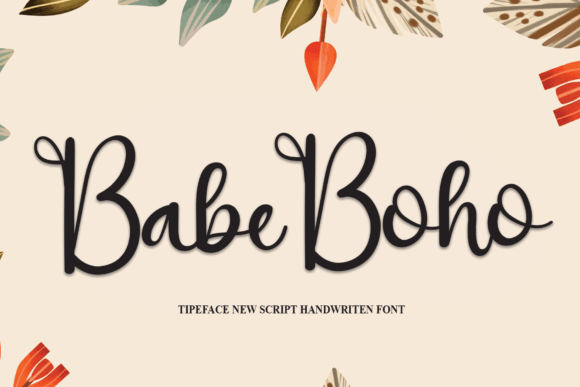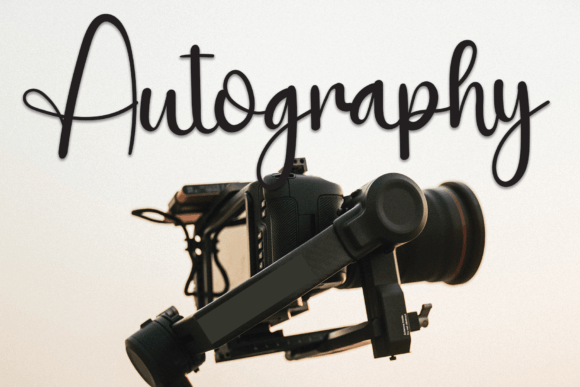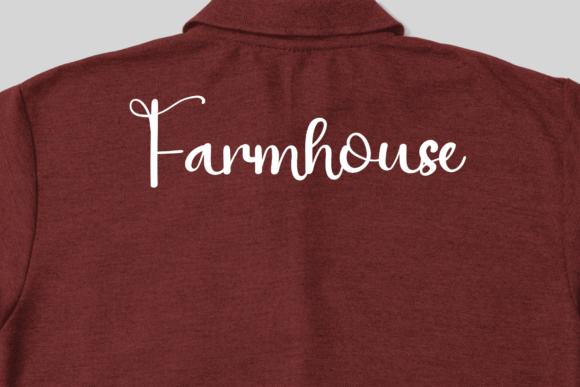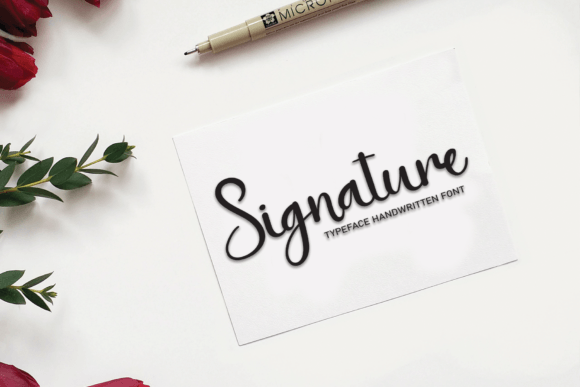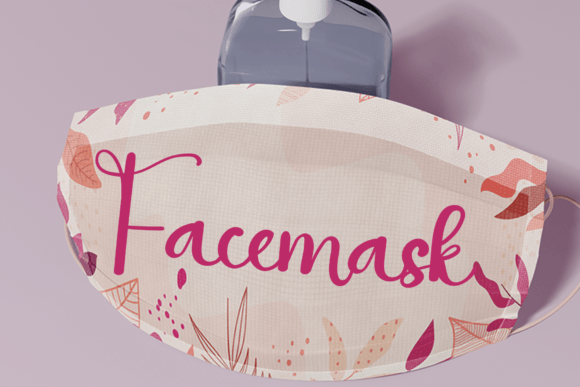
Babe Boho Font
About Babe Boho Font
Babe Boho Font is a soft, stylish handwritten typeface that brings a joyful, personal feel to your creative work. Designed with simplicity and friendliness in mind, it captures the effortless charm of hand lettering while maintaining excellent readability. Whether you’re creating invitations, greeting cards, or crafting digital content, Babe Boho Font adds just the right touch of warmth.
Ideal for Modern & Personal Design Projects
This font works beautifully across both print and digital formats. From handmade products to online branding, its smooth curves and even strokes help elevate any layout. Because it’s easy to read and visually balanced, Babe Boho Font is perfect for both casual and professional projects. For instance, you can use it on logos, social media graphics, or even product packaging with a handcrafted feel.
Where to Use Babe Boho Font
You’ll find it especially useful for:
• Personalized greeting cards and stationery
• Craft projects and printables
• DIY merchandise such as tote bags, t-shirts, and mugs
• Wedding or baby shower invitations
• Quote images for Instagram or Pinterest
• Boutique logos and handmade product labels
Add Character with Every Letter
Since the font resembles genuine handwriting, it adds a human touch to designs. Moreover, it includes clear spacing and consistent forms, making it suitable for a wide variety of applications. This makes it not only attractive but also functional, especially for creators who want both style and ease of use.